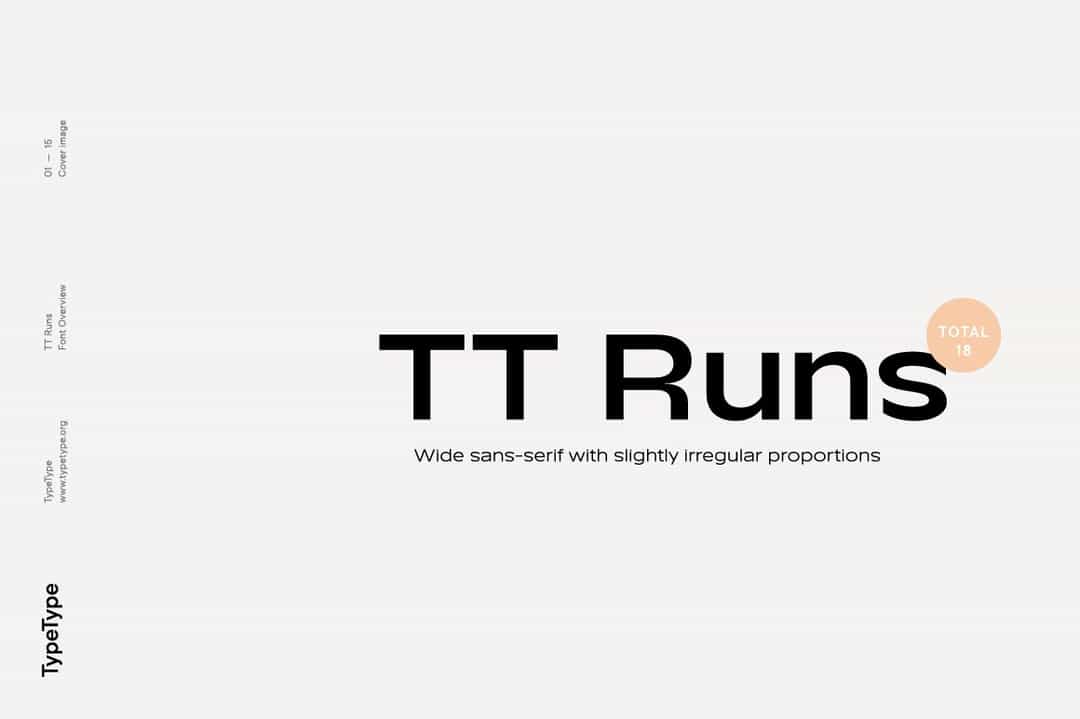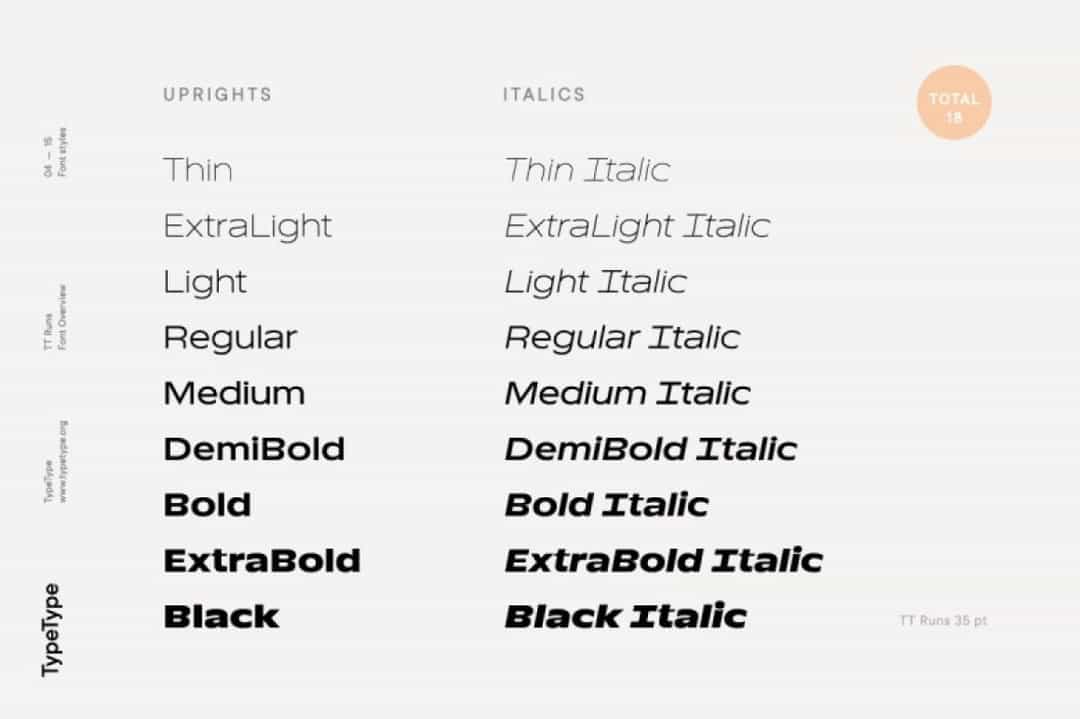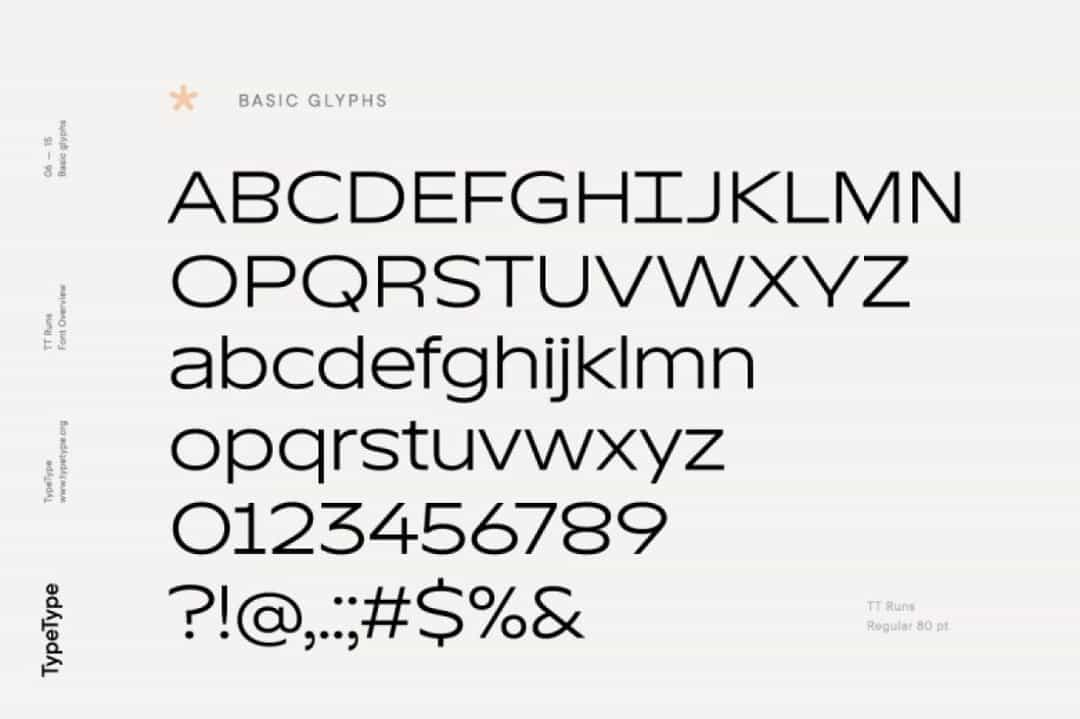
TT Runs Font Family began with an ambitious goal: to design an athletic-inspired sans-serif font family to reflect athletic style and complement sporting apparel. Prior to drafting our concept, we researched Olympic venues and their significance; as well as “sports” fonts from different eras and continents.